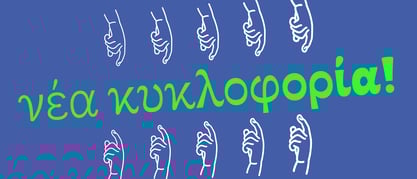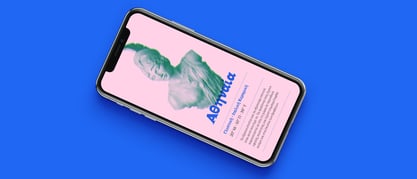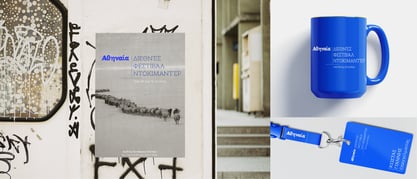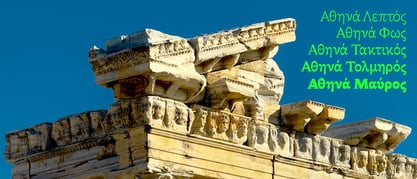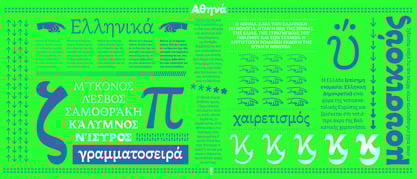
Athenea
by Letterjuice
The Athenea Font Family was designed by Pilar Cano, Ferran Milan and published by Letterjuice. Athenea contains 5 styles and family package options. More about this family
Athenea is an experimental yet functional family which explores the boundaries between type styles within the same typeface. This text and display Greek typeface with 5 weight, and 3 very distinctive personalities.
The Regular has a moderate contrast with extremely good legibility, ideal for long text in editorial use, while the Thin loses contrast, and takes on the style of the classical slab serifs of the 30s-40s with a contemporary twist. At the other extreme, the Black is a bit more contrasted and it is a display style thought for titling, packaging, and branding use. In between we have a Light also great for text and a Bold to complete a family with a good type palette to cover the need of projects with several levels of information.